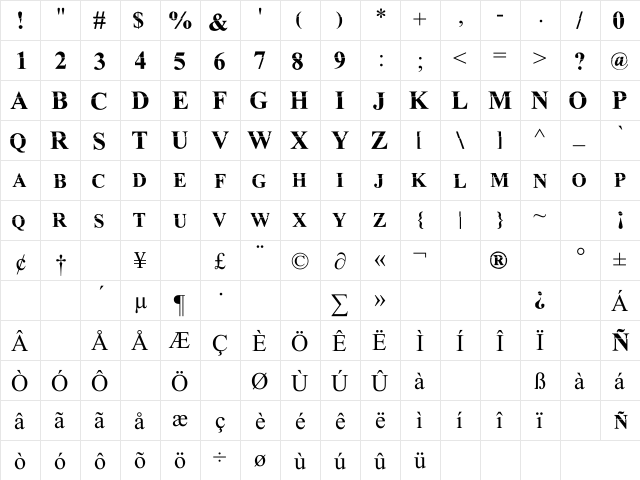
MuRdOiNk Cool
| Foundry | Mortal Kombat Deadly Alliance |
| Designer | MuRdOiNk |
Design Context for MuRdOiNk Typeface
MuRdOiNk is a composed and adaptable typeface that performs quietly and consistently across a wide range of design contexts.